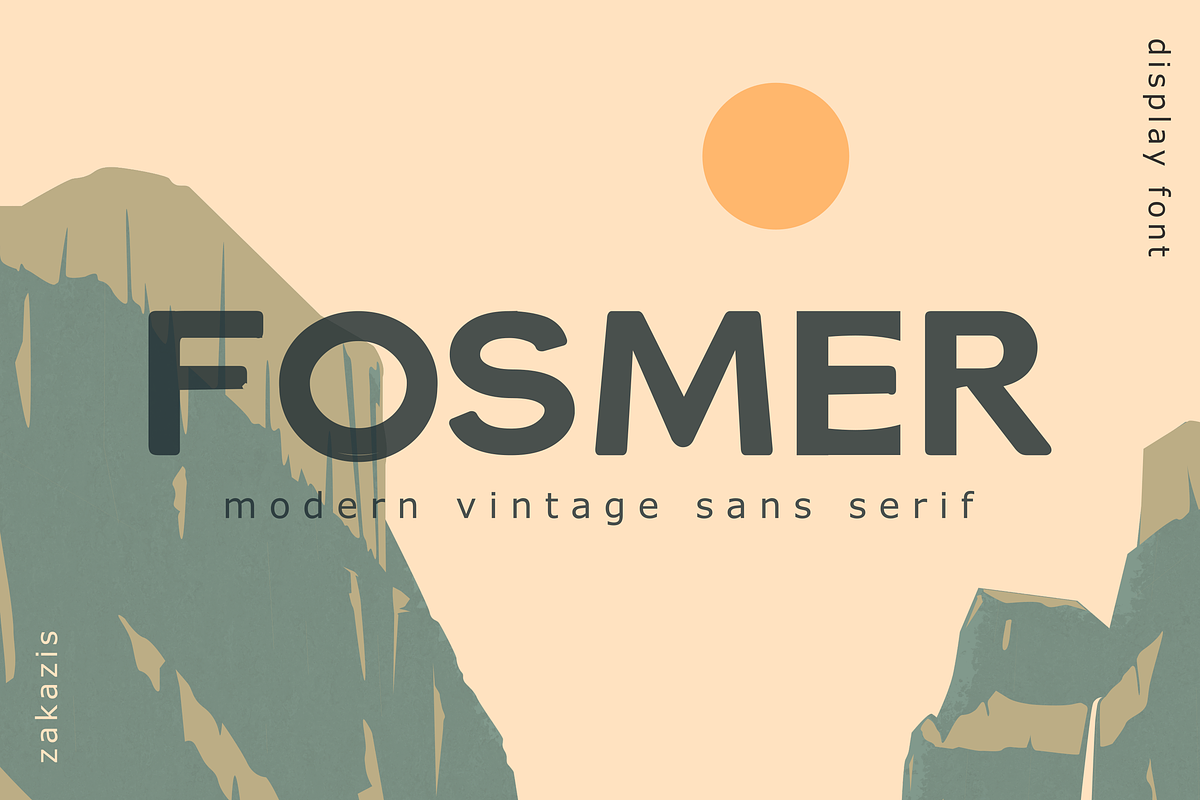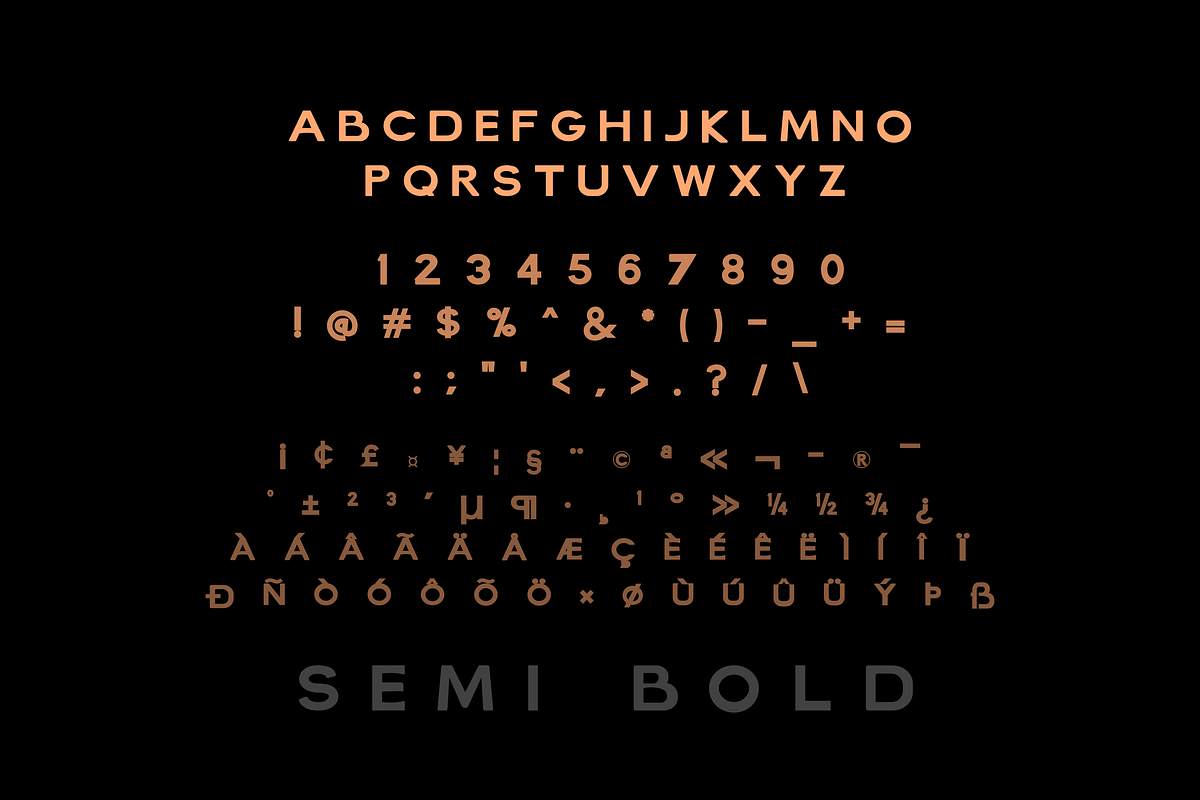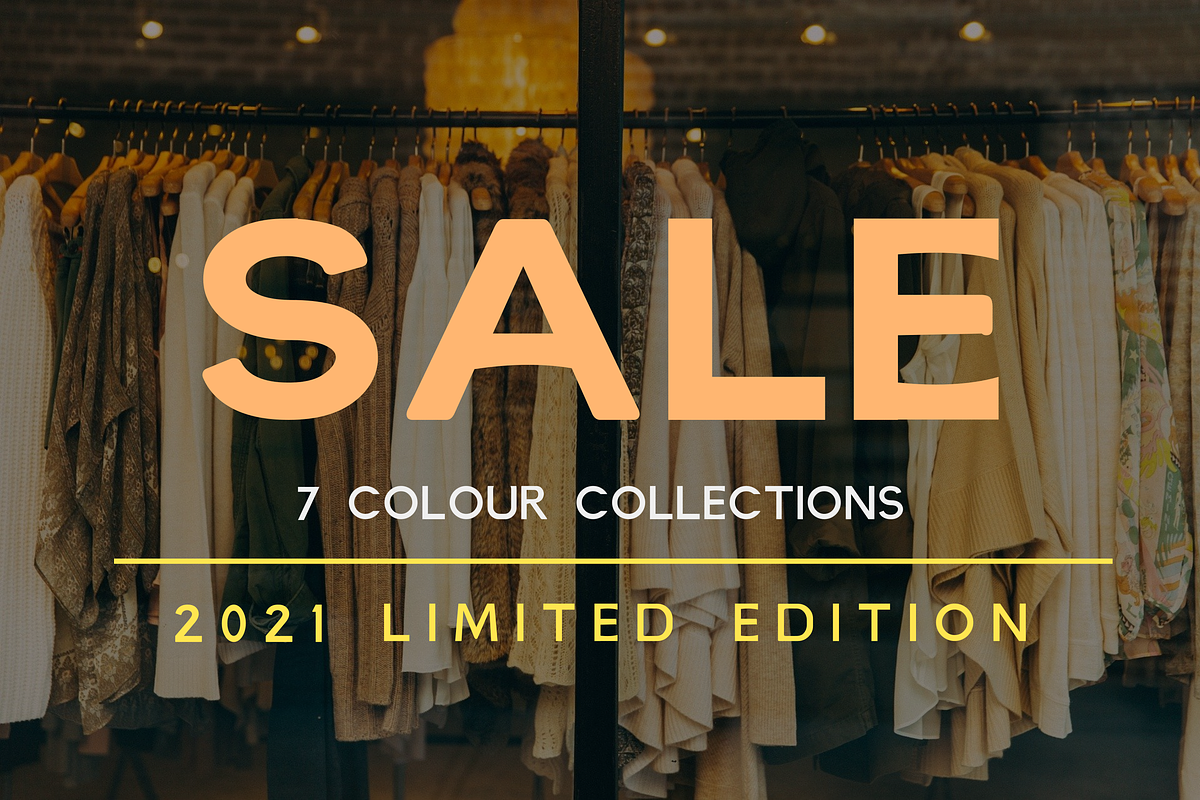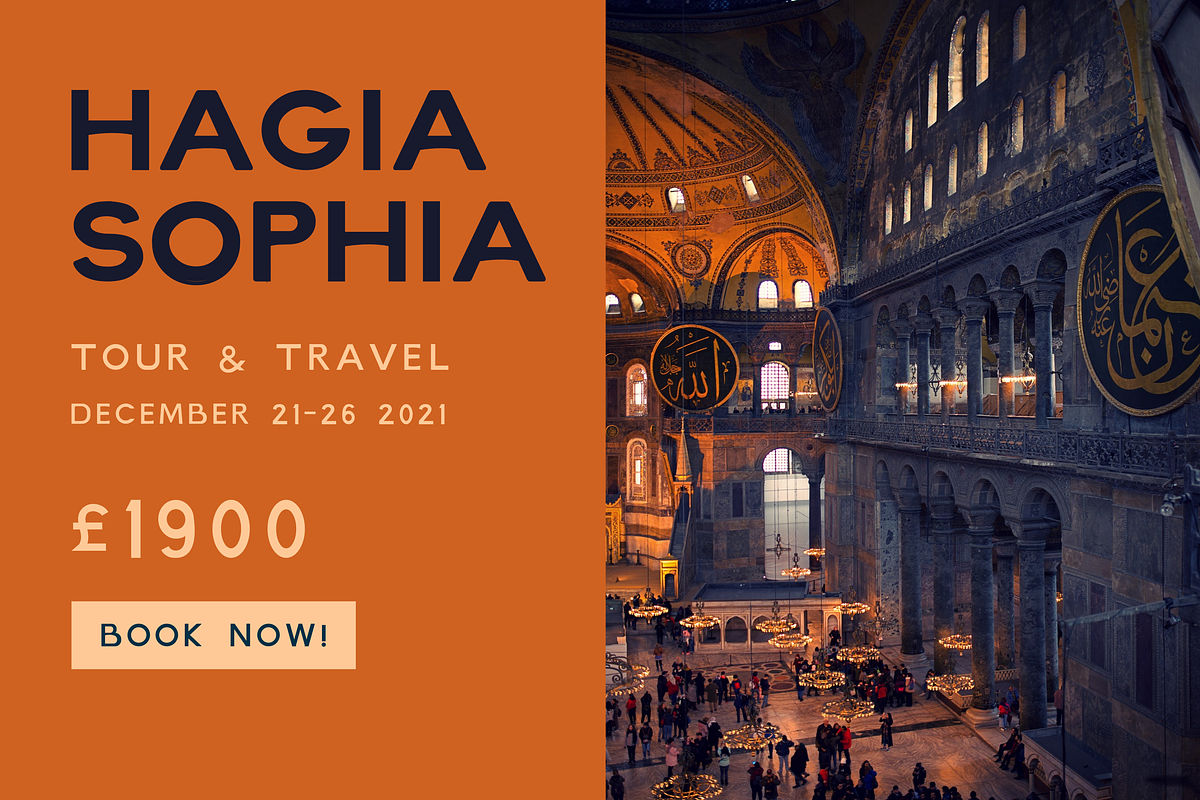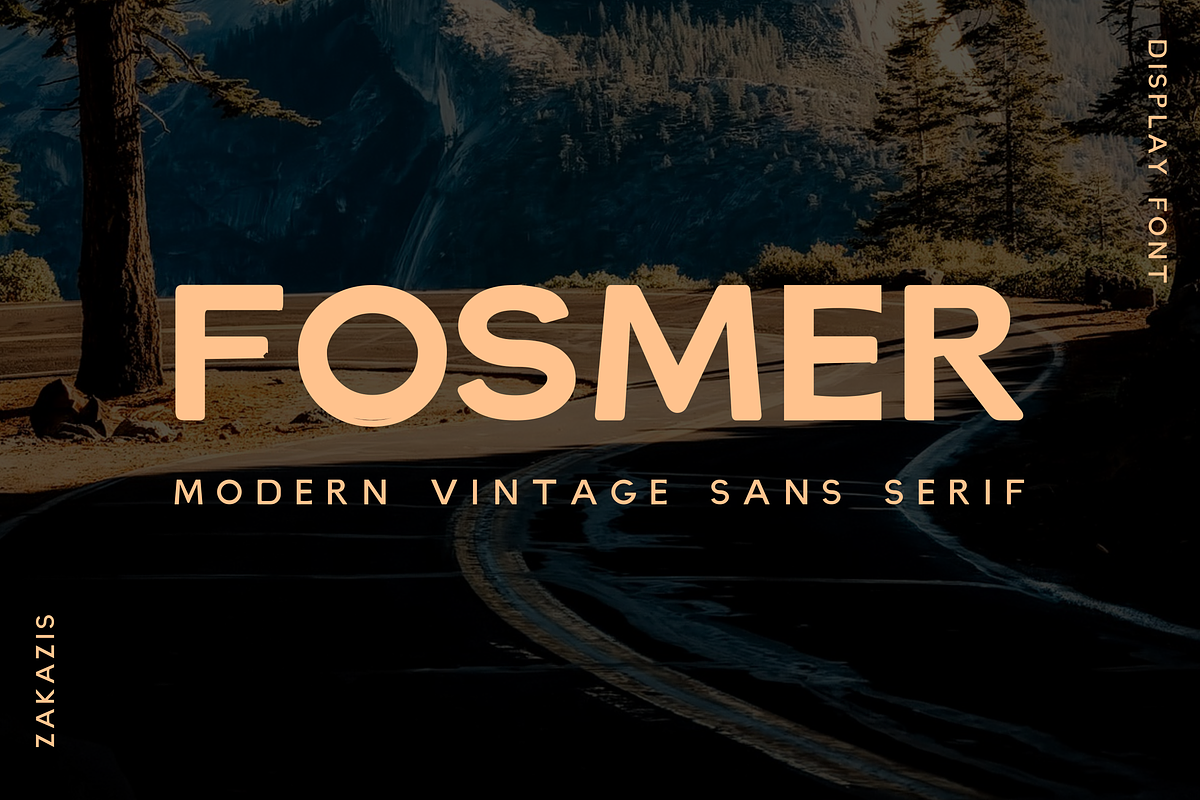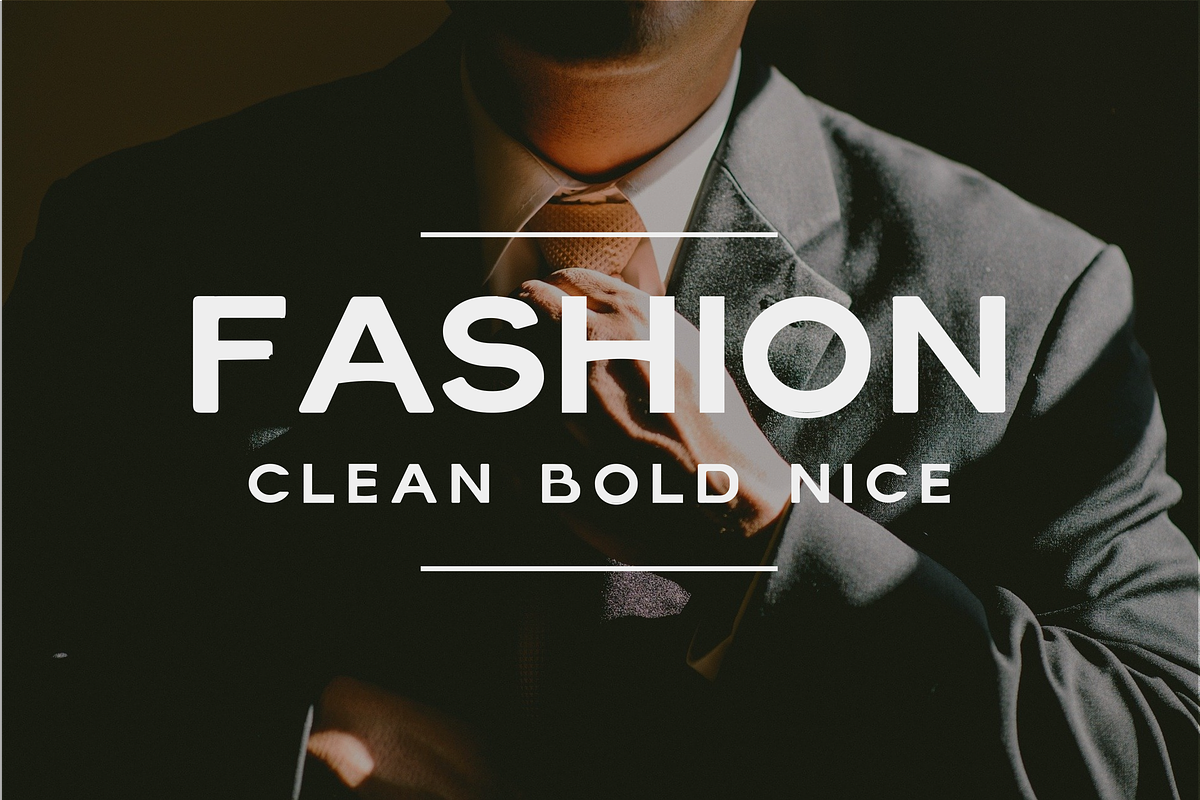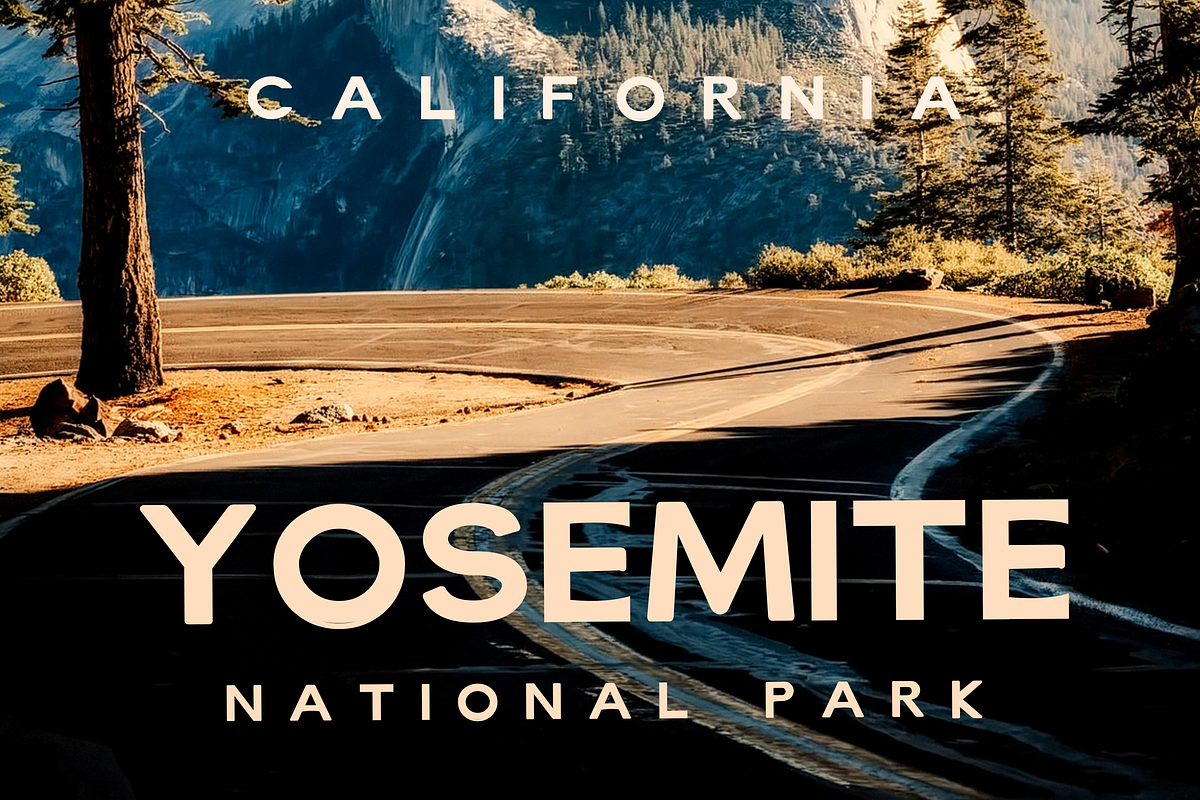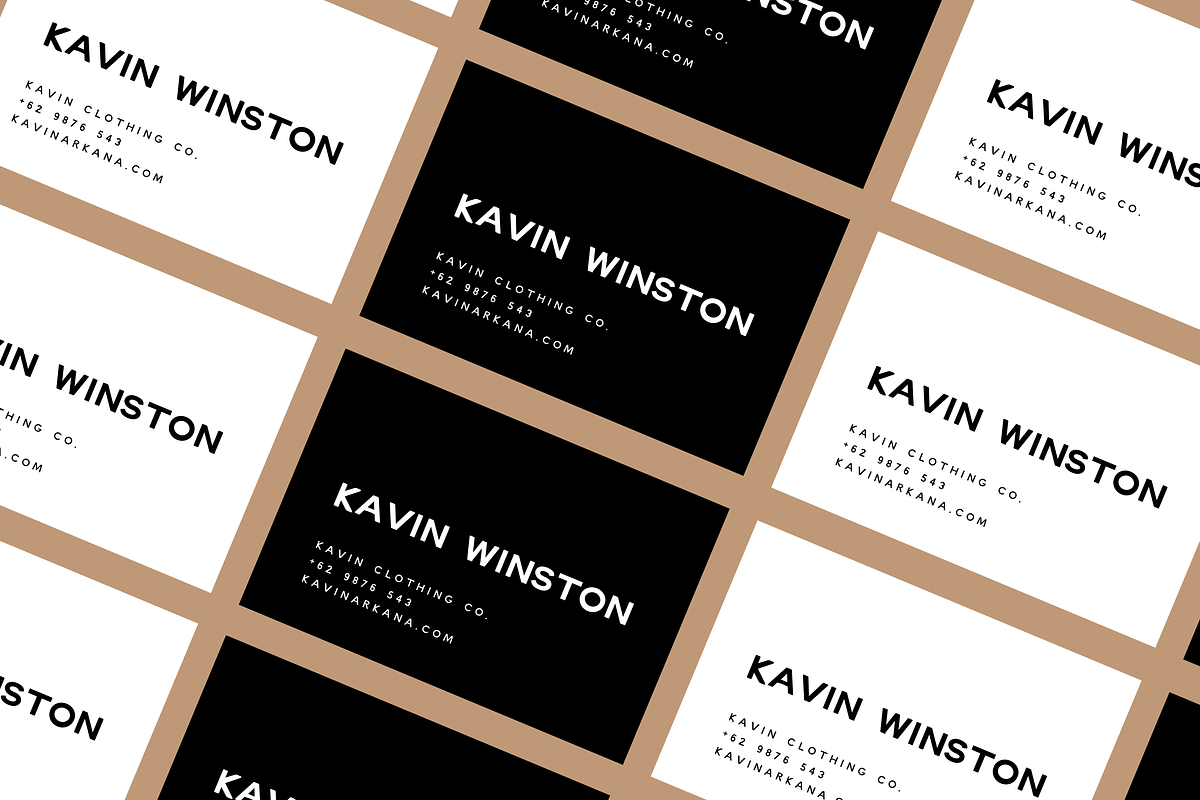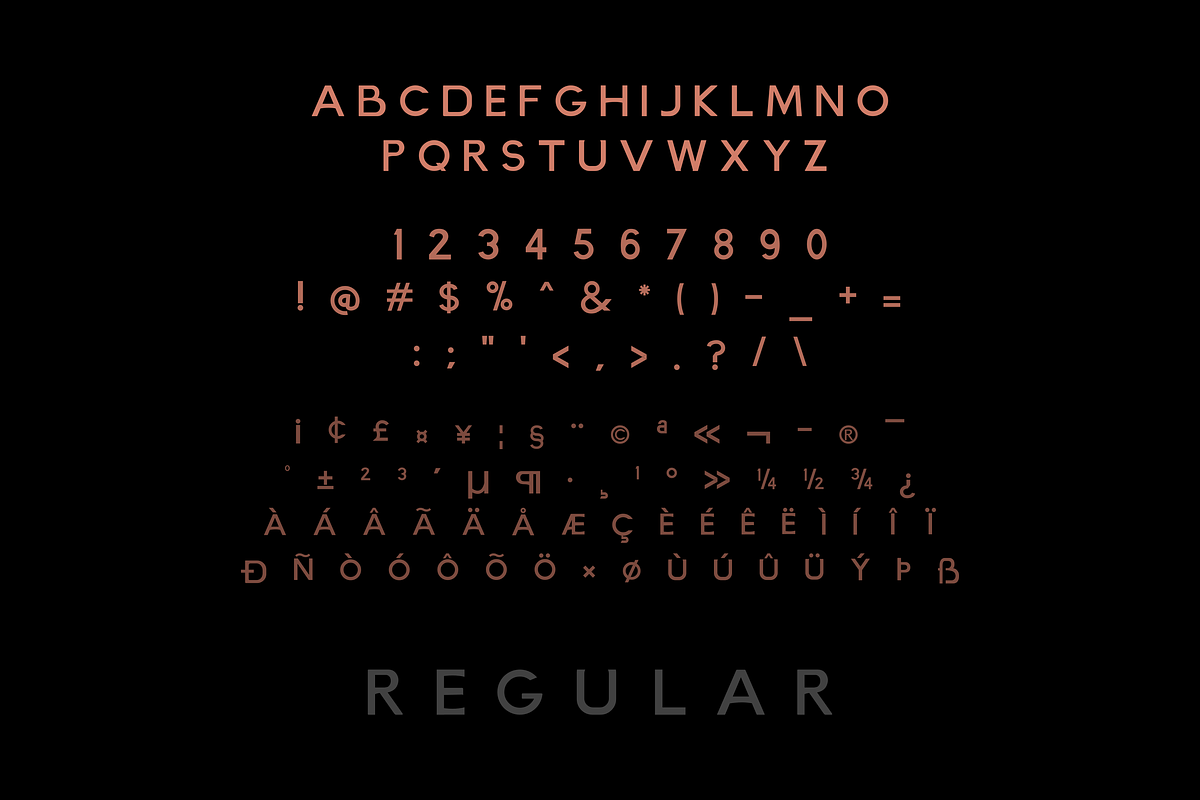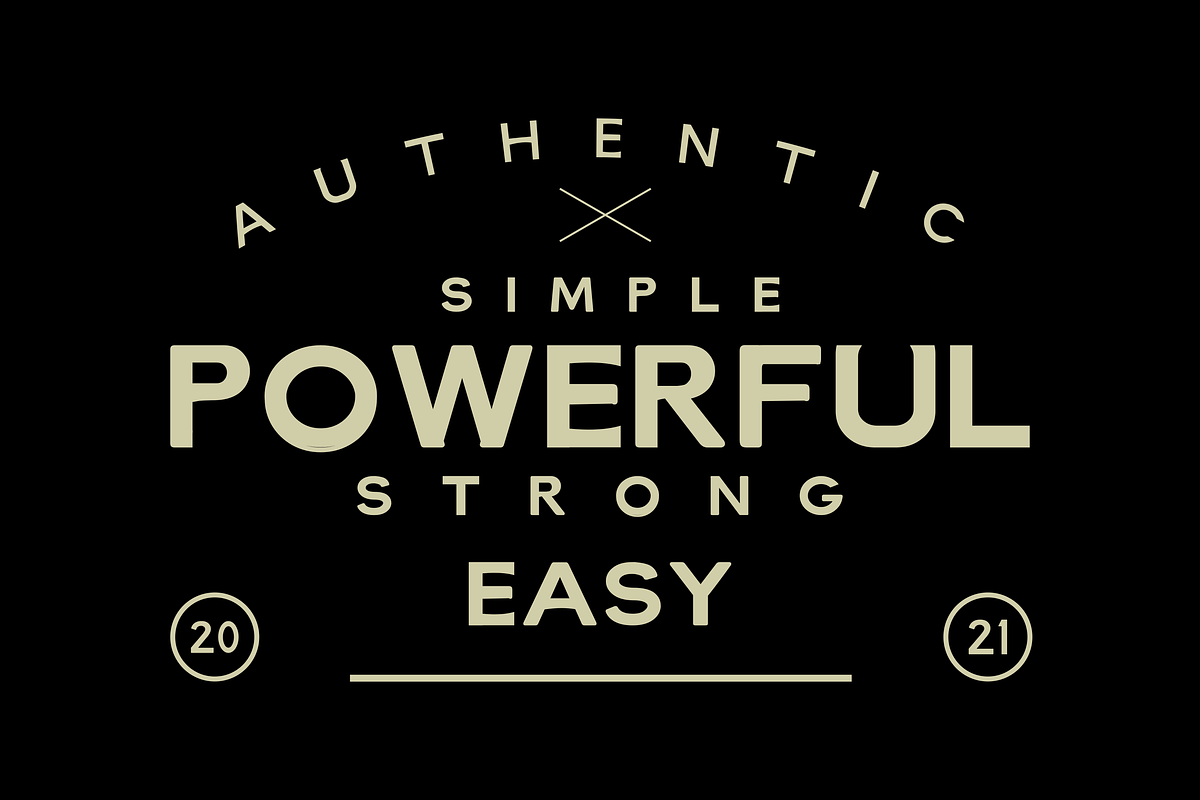
Fosmer - Modern Vintage Sans Serif
Fosmer is a modern-vintage style of san serif typeface for Display font so only focus that has been simplicity and have strong and bold taste with little curved edge that making it memorable and easy to see, The Fosmer font can be used for wordmark logos, app, mastheads, poster, book cover tittle, web article, etc.